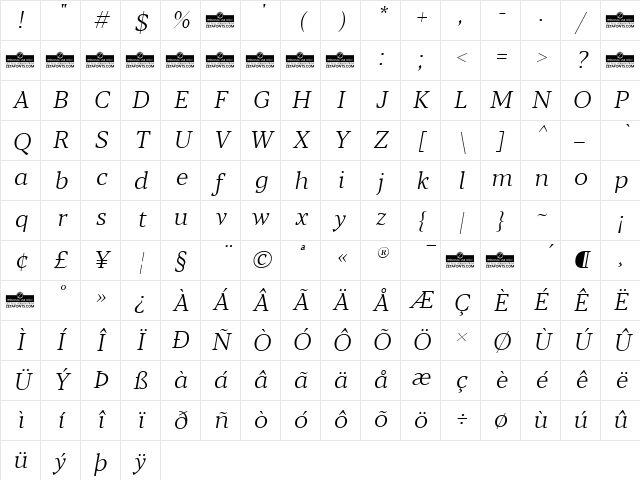
Blacker Text Light Italic
Foundry: Cosimo Lorenzo Pancini & Francesco Canovaro
Designer: Cosimo Lorenzo Pancini & Francesco Canovaro
Complete Blacker Text Light Italic glyph index. Displaying only characters natively supported by Blacker Text Light Italic font.
Design Context for Blacker Text
Blacker Text is a composed and adaptable typeface that performs quietly and consistently across a wide range of design contexts. The slanted form adds forward momentum and visual energy. Its slender proportions lend an understated elegance to any composition.
Who designed the Blacker Text Light Italic font?